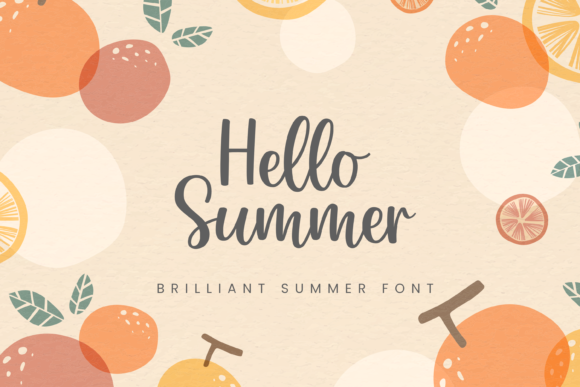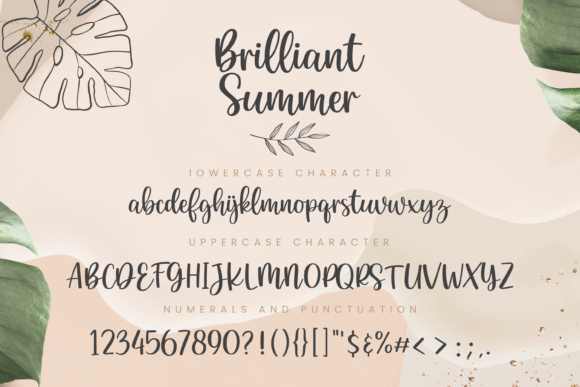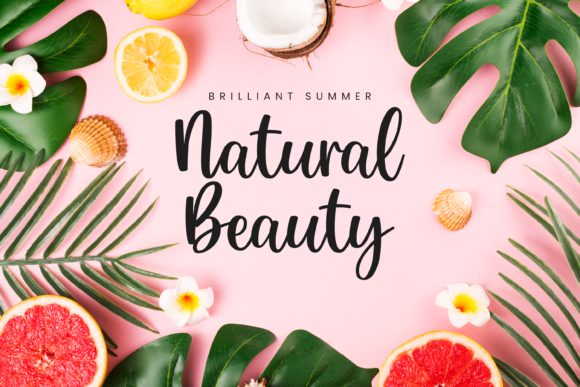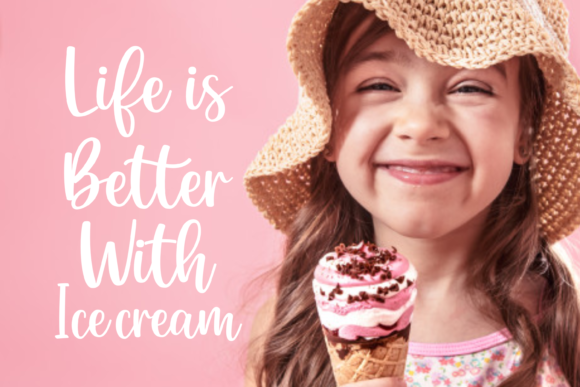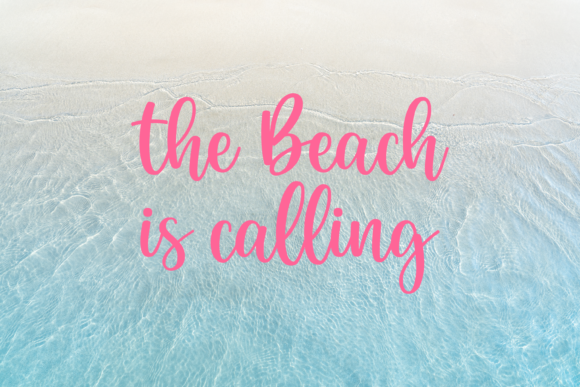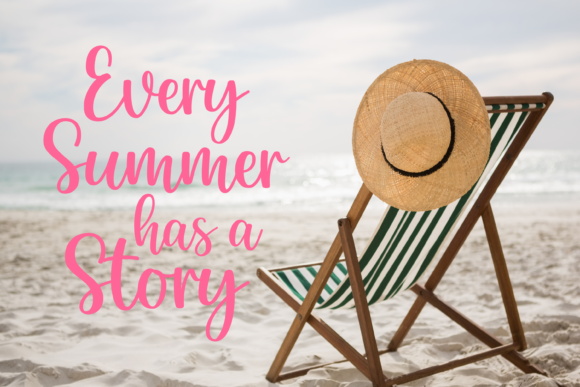
Introducing Brilliant Summer Font: Add a Touch of Romance to Your Designs
Are you looking for a font that can add a romantic feel to your designs? Look no further than Brilliant Summer Font! This enchanting handwritten font is perfect for a wide range of applications, from greeting cards to headlines, and is sure to make your projects stand out.
What Makes Brilliant Summer Font So Special?
Brilliant Summer is a lovely and fresh script font that is guaranteed to add a touch of elegance and sophistication to your designs. Its unique and flowing style makes it perfect for creating beautiful and eye-catching headlines, titles, and text. Whether you’re a designer, crafter, or DIY enthusiast, this font is sure to become a favorite in your collection.
Key Features of Brilliant Summer Font
- Handwritten style: Brilliant Summer Font has a beautiful, handwritten style that adds a personal touch to your designs.
- Romantic feel: This font is perfect for creating romantic and whimsical designs, making it ideal for greeting cards, wedding invitations, and other special occasions.
- Versatile: Brilliant Summer Font can be used for a wide range of applications, from headlines and titles to body text and more.
- Elegant and sophisticated: This font has a elegant and sophisticated style that is sure to make your designs stand out.
Uses for Brilliant Summer Font
Brilliant Summer Font is perfect for a wide range of design projects, including:
- Greeting cards: Create beautiful and unique greeting cards for special occasions like birthdays, weddings, and holidays.
- Wedding invitations: Add a touch of romance and elegance to your wedding invitations with this stunning font.
- Headlines and titles: Use Brilliant Summer Font to create eye-catching headlines and titles for your blog posts, articles, and other written content.
- Social media graphics: Create beautiful and engaging social media graphics with this font, perfect for Instagram, Facebook, and more.
- Branding and packaging: Use Brilliant Summer Font to add a touch of elegance and sophistication to your branding and packaging designs.
Why Designers and Crafters Love Brilliant Summer Font
Designers and crafters love Brilliant Summer Font for its unique and versatile style. Here are just a few reasons why:
- High-quality design: Brilliant Summer Font is designed with high-quality and precision, ensuring that it looks great in any design.
- Unique style: This font has a unique and distinctive style that sets it apart from other fonts.
Tips for Using Brilliant Summer Font
Here are a few tips for using Brilliant Summer Font in your designs:
- Use it sparingly: Use Brilliant Summer Font sparingly to add a touch of elegance and sophistication to your designs.
- Pair it with other fonts: Pair Brilliant Summer Font with other fonts to create a unique and visually appealing design.
- Experiment with different sizes: Experiment with different sizes and styles to find the perfect look for your design.
- Have fun: Most importantly, have fun and be creative with Brilliant Summer Font!